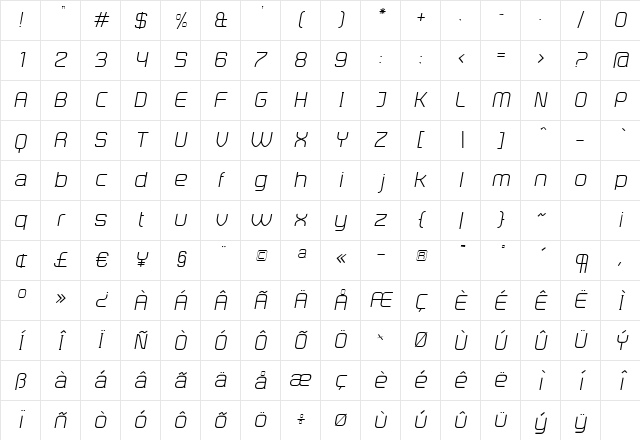
Complete DistillaLight Italic Regular glyph index. Displaying only characters natively supported by DistillaLight Italic Regular font.
DistillaLight Italic is a composed and adaptable typeface that performs quietly and consistently across a wide range of design contexts. The slanted form adds forward momentum and visual energy. Its slender proportions lend an understated elegance to any composition.